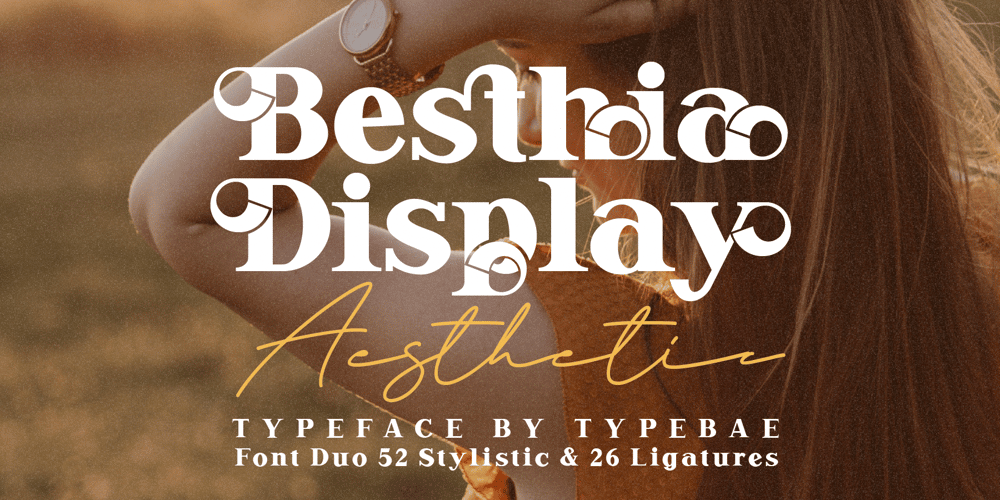
Besthia Display Font Family was designed by Iqbal Pauji and published by Typebae. Besthia Display contains 4 styles and family package options. Besthia Display is a stylish vintage font vibe with a touch of modernity. It looks amazing at display sizes and is easily readable in text size. Besthia Display comes with access to your OpenType features, large selection of stylistic alternate glyphs and ligatures.To use stylistic alternates and ligatures, there is no need to use software that supports OpenType, because we have made them separately so it is very easy to use.Features: Multilingual, Ligatures, Stylistic Alternates & PUA encoded